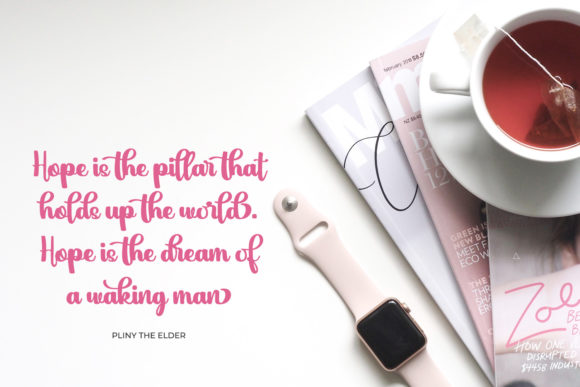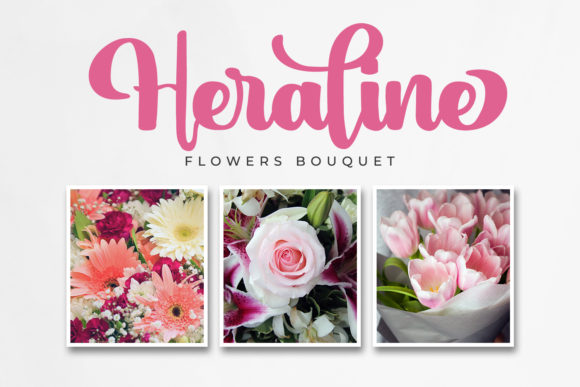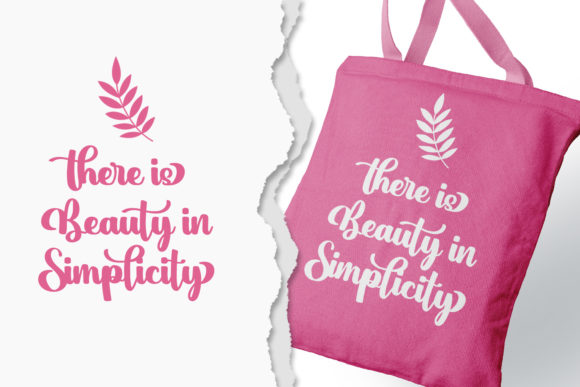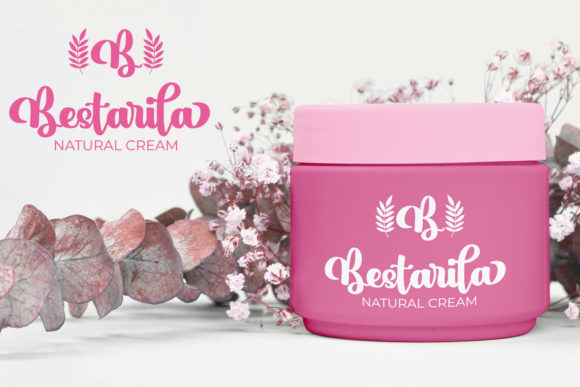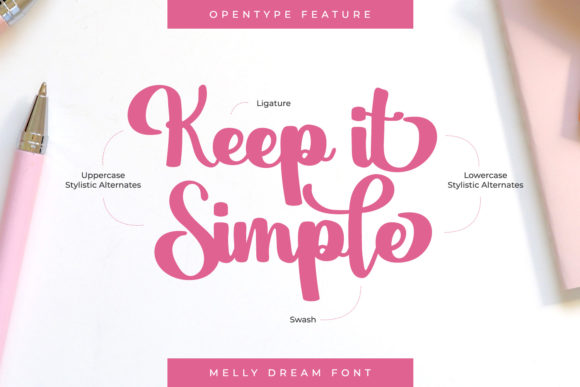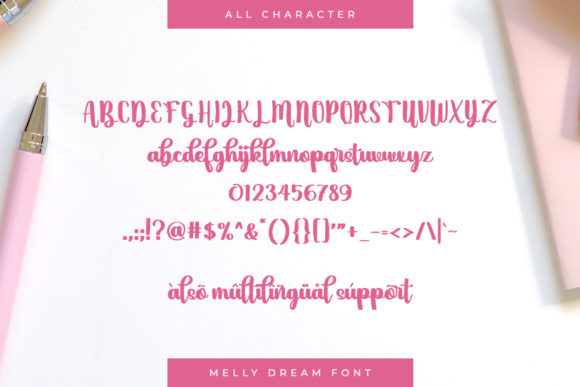
Introduction to Melly Dream Font
Melly Dream is a beautiful handwritten font.
It is suitable for any branding, product packaging, invitation, quote, t-shirt, label, poster, logo that you wish to develop .
Key Features of Melly Dream Font